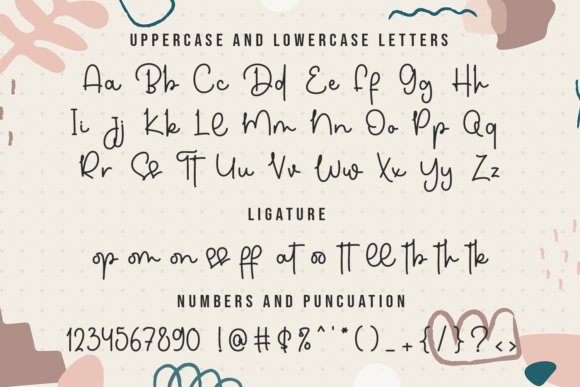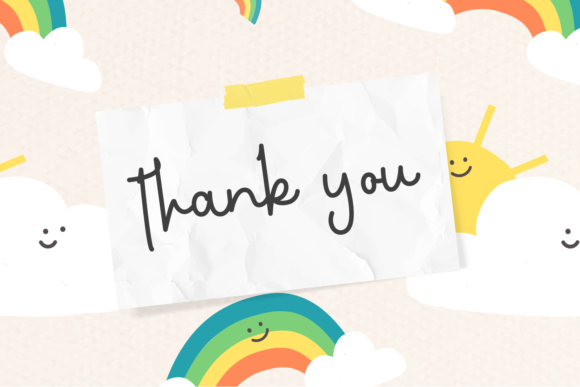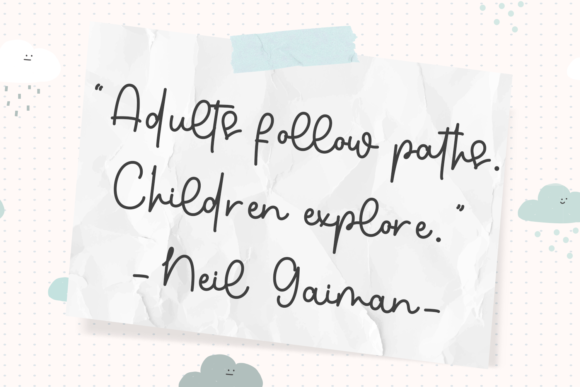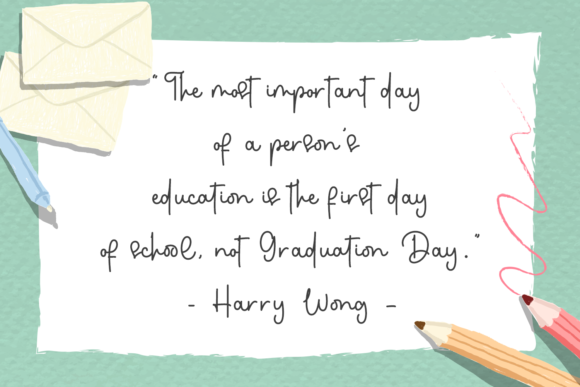
Introducing Danette Font: Elevate Your Designs with a Beautiful Monoline Script
Are you a designer, crafter, or creative looking to take your projects to the next level? Look no further than the Danette Font, a stunning monoline script font that is sure to inspire your imagination and elevate your designs. With its cheerful and elegant style, Danette Font is the perfect addition to any project, from branding and advertising to crafting and DIY tutorials.
What is Danette Font?
Danette Font is a monoline script font, characterized by its smooth, flowing lines and consistent line width. This unique style gives Danette a modern and sophisticated look that is both eye-catching and versatile. Whether you’re looking to create a bold statement or a subtle accent, Danette Font is the perfect choice.
Key Features of Danette Font
- Beautiful and Cheerful Design: Danette Font features a unique and cheerful design that is sure to add a touch of personality to your projects.
- Elegant Monoline Style: The monoline style of Danette Font gives it a modern and sophisticated look that is perfect for a wide range of projects.
- Highly Versatile: Danette Font is suitable for a variety of projects, from branding and advertising to crafting and DIY tutorials.
- Easily Readable: Despite its elegant and cursive style, Danette Font is highly readable, making it perfect for body text and headings.
How to Use Danette Font in Your Projects
Danette Font is incredibly easy to use and can be incorporated into a wide range of projects. Here are a few ideas to get you started:
- Branding and Advertising: Use Danette Font to create eye-catching logos, business cards, and brochures that showcase your brand’s personality.
- Crafting and DIY Tutorials: Add a touch of elegance to your crafting and DIY tutorials with Danette Font, perfect for titles, headings, and quotes.
- Social Media Graphics: Use Danette Font to create stunning social media graphics, including Instagram posts, Facebook covers, and Twitter headers.
- Web Design: Incorporate Danette Font into your web design projects, including website headers, titles, and navigation menus.
Benefits of Using Danette Font
By incorporating Danette Font into your projects, you can enjoy a range of benefits, including:
- Increased Creativity: Danette Font is designed to inspire your imagination and creativity, helping you to think outside the box and try new things.
- Improved Brand Recognition: With its unique and elegant style, Danette Font can help to establish your brand’s identity and improve recognition.
- Enhanced Visual Appeal: Danette Font is sure to add a touch of elegance and sophistication to your projects, making them more visually appealing and engaging.
In conclusion, Danette Font is a beautiful and cheerful monoline script font that has the power to elevate your imagination and each of your creative designs to their highest level. With its elegant style, versatility, and ease of use, Danette Font is the perfect addition to any project. So why wait? Add Danette Font to your projects today and discover the difference it can make!
Whether you’re a designer, crafter, or creative, Danette Font is sure to inspire your imagination and help you to create stunning projects that stand out from the crowd. So go ahead, get creative, and see what amazing things you can achieve with Danette Font!